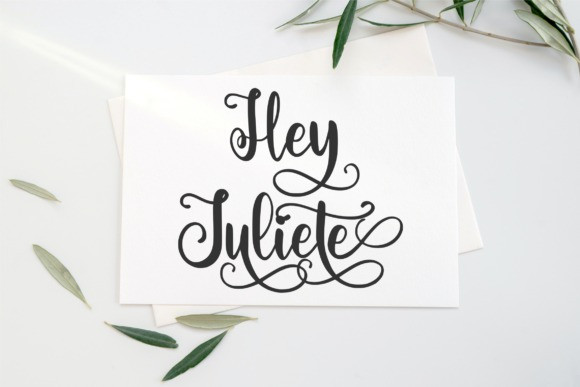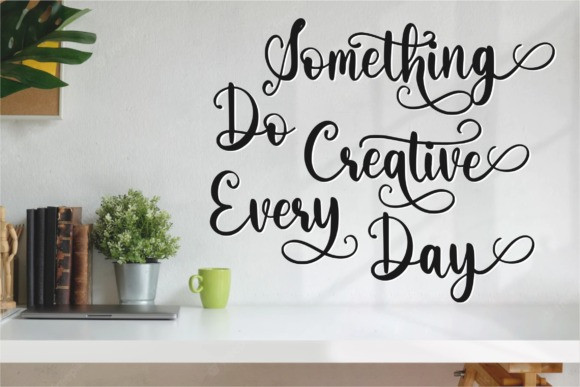
Claudia Lilia Script Font
Claudia Lilia is a trendy and chic handwritten font. It looks beautiful on a variety of designs requiring a personalized style, such as wedding invitations, thank you cards, weddings, greeting cards, logos and so on.